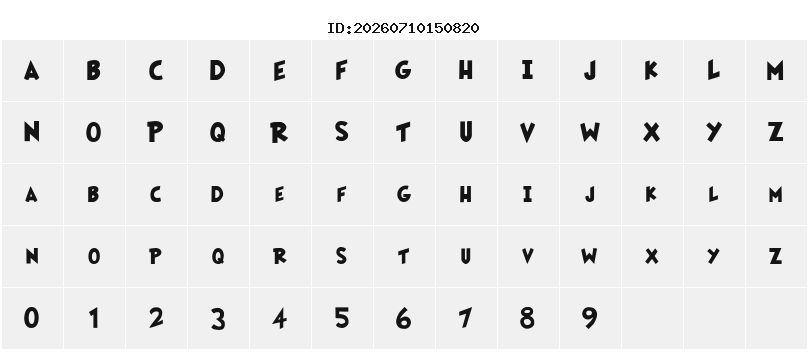
Fairly OddFont Preview
• Font Name: Fairly OddFont
• Font Style: Fairly OddFont
• Full Font Name: Fairly OddFont
• Copyright: Copyright (c) Lizard Sharkragon, 2008. Font created based on a font shown in the cartoon Fairly Oddparents, by Butch Hartman.
• Description: Font created based on a font shown in the cartoon Fairly Oddparents, by Butch Hartman.
About Fairly OddFont.ttf
Fairly OddFont.ttf is a modern, elegant sans-serif font designed for ultimate readability and visual harmony. Perfect for branding, headlines, web design, and print materials.